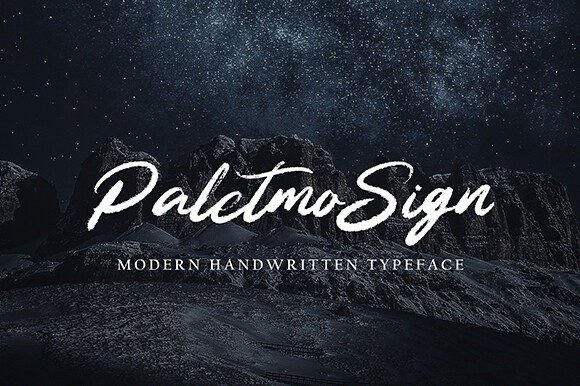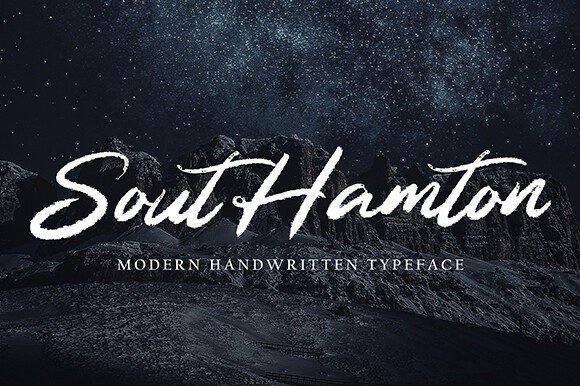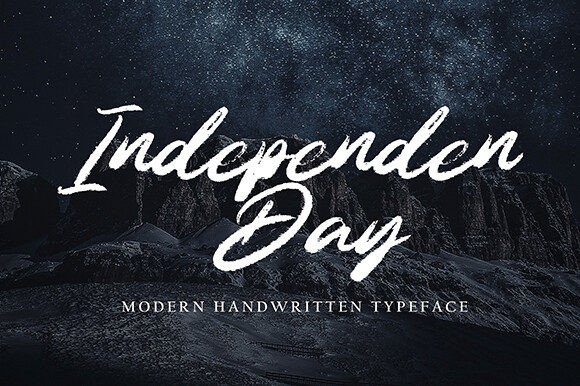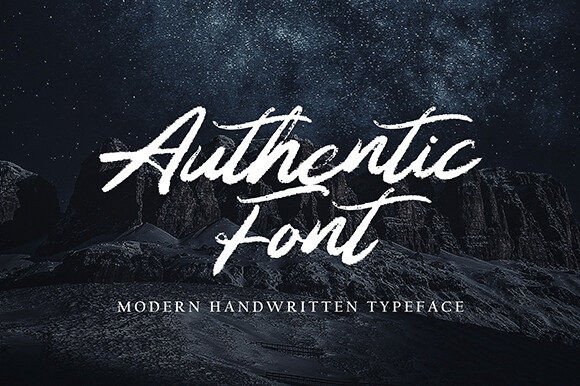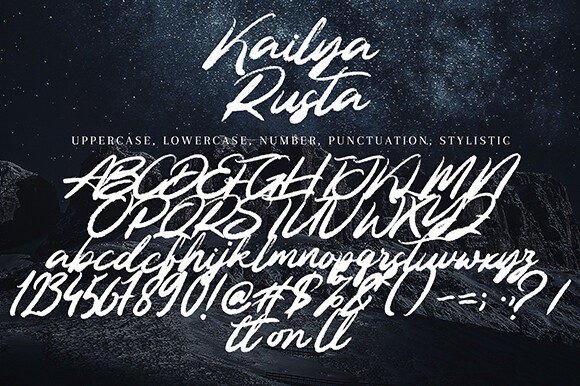
Discover the Timeless Elegance of Kailya Rusta Font
You know that moment when you’re brainstorming ideas for a new project, and suddenly, everything clicks? The colors, the typography, the overall vibe – it all comes together in perfect harmony. For designers, those ‘aha’ moments are what make the job truly magical. And when you’re working on a project that requires a touch of sophistication and elegance, Kailya Rusta Font is sure to be your new best friend.
Kailya Rusta Font is a beautiful, flowing handwritten brush font that adds an extra layer of charm to any design. With its distinct and timeless style, it’s perfect for creating spectacular designs that leave a lasting impression. Whether you’re working on a wedding invitation, a branding project, or a social media campaign, Kailya Rusta Font is the ideal choice for adding a touch of sophistication and elegance.
Kailya Rusta Font Key Features
- Font Family: Kailya Rusta
- Unique Characteristics: Kailya Rusta features a distressed, vintage aesthetic with intricate textures and ornate details, making it ideal for creative projects and designs that require a unique, handmade look.
- Language Support: Supports multiple languages, including Latin, Cyrillic, and Greek scripts
Kailya Rusta Font Review
Overall, I was excited to try out the Kailya Rusta font, but my experience was a mixed bag. Here are some of the things that worked well:
- ✨ Unique aesthetic: The Kailya Rusta font has a distinctive, hand-drawn feel that can add a lot of character to a design.
- ✨ Good for titles and headlines: The font is quite bold and eye-catching, making it well-suited for titles and headlines where you want to draw attention.
- ✨ Supports multiple languages: The font includes support for a wide range of languages, which is great for international projects.
- ⚠️ Limited font weights: The font only comes in a few weights, which can limit its versatility in certain situations.
- ⚠️ Not ideal for body text: The font’s bold, hand-drawn style can be overwhelming for large blocks of text, making it less suitable for body copy.
- ⚠️ Some characters may not render correctly: I encountered some issues with characters not rendering correctly, particularly in certain font sizes or styles.
Overall, I think the Kailya Rusta font is a solid choice for certain design projects, but it’s not a one-size-fits-all solution. With some careful consideration of its strengths and limitations, it can be a great addition to your design toolkit.
Kailya Rusta Font Practical Application Guide
The Kailya Rusta font is ideal for:
- Brand logos and typography
- Quote graphics and social media posts
For optimal results, pair the Kailya Rusta font with a clean and minimalist design aesthetic.
Compared to Kailya Rusta Font, Great Vibes Font has a more refined and polished look, making it suitable for formal and professional designs. While Kailya Rusta Font has a more rustic feel, Great Vibes Font is better suited for elegant and luxurious designs.
Compared to Kailya Rusta Font, Carolyna Pro Font has a more contemporary and trendy look, making it suitable for modern and fashion-forward designs. While Kailya Rusta Font has a more vintage feel, Carolyna Pro Font is better suited for bold and statement-making designs.
The Alex Brush Font is a elegant and refined script font that is perfect for adding a touch of sophistication to your designs. It’s ideal for use in titles, headings, and quotes where a cursive or handwritten feel is desired.
Compared to Kailya Rusta Font, Alex Brush Font has a more subtle and understated look, making it suitable for designs where a delicate and refined feel is desired. While Kailya Rusta Font has a more rustic feel, Alex Brush Font is better suited for elegant and sophisticated designs.